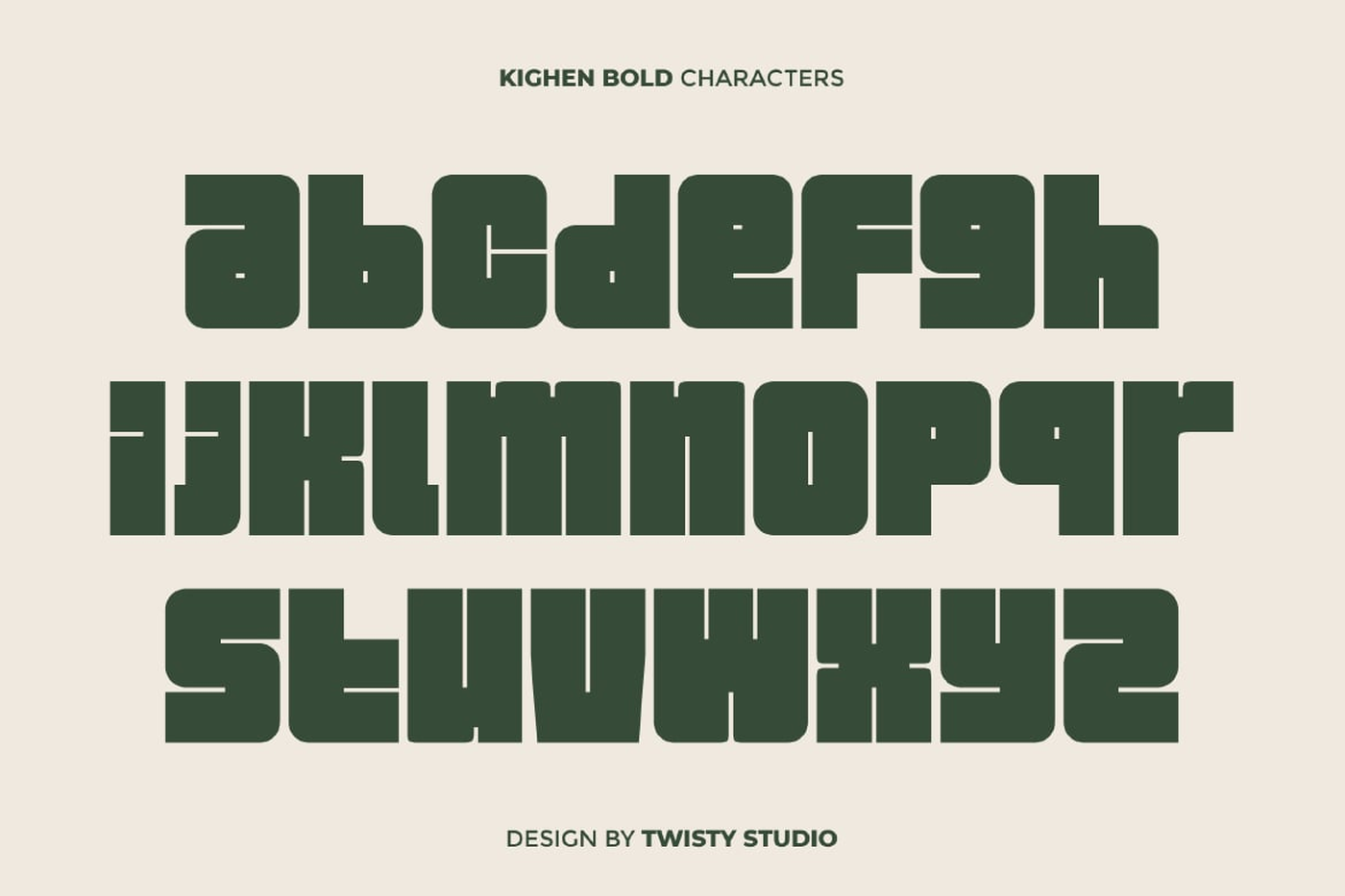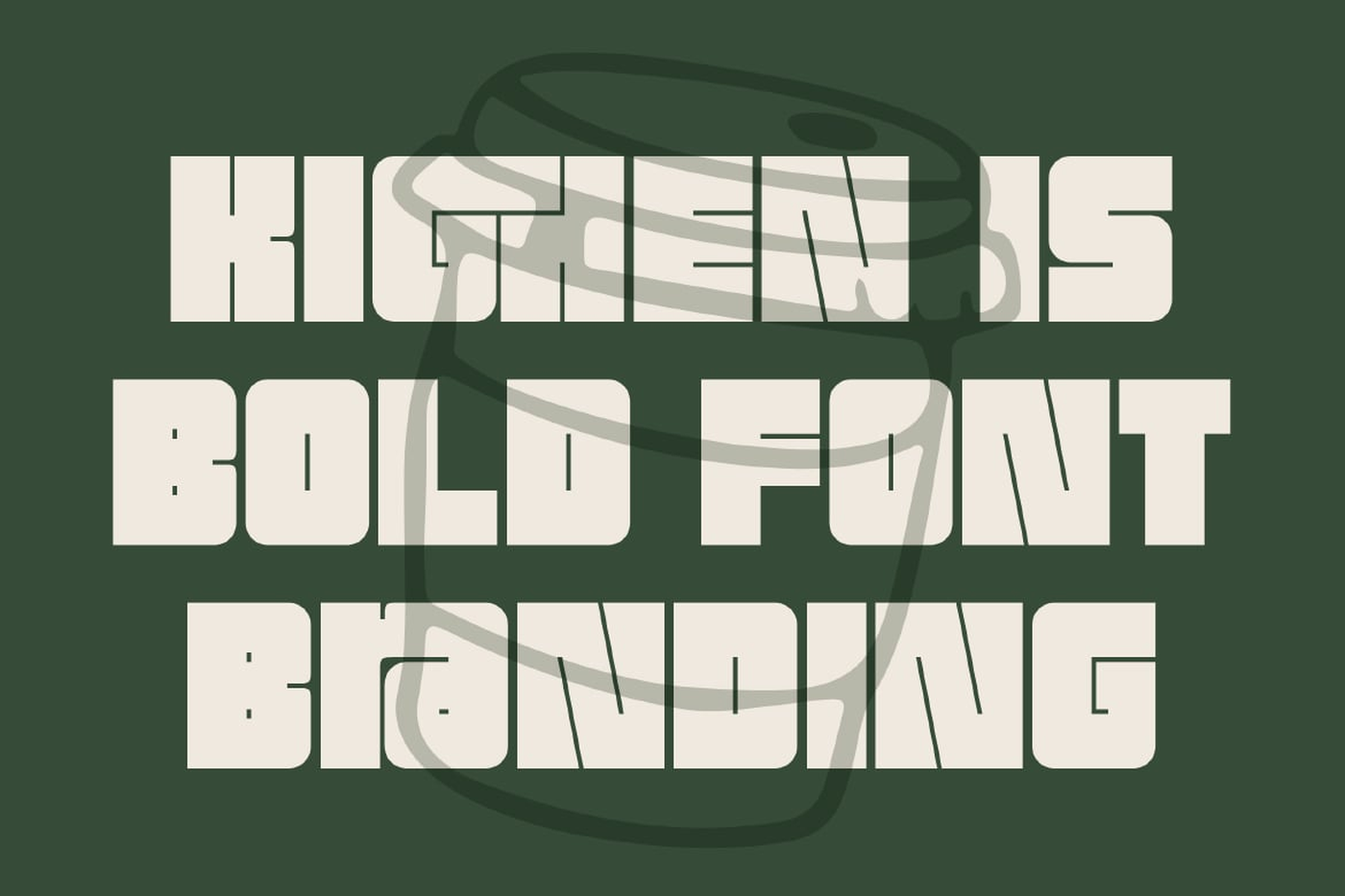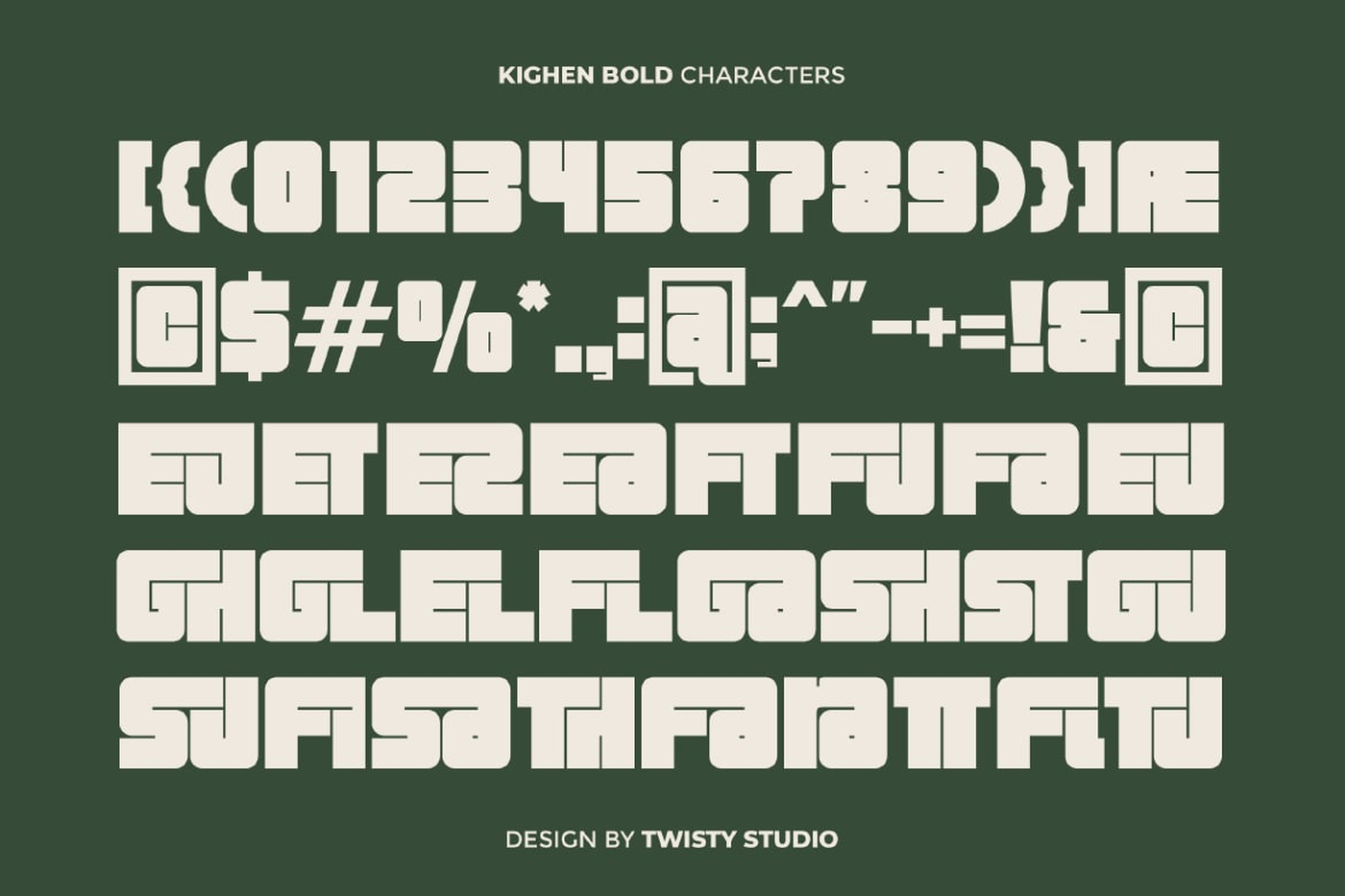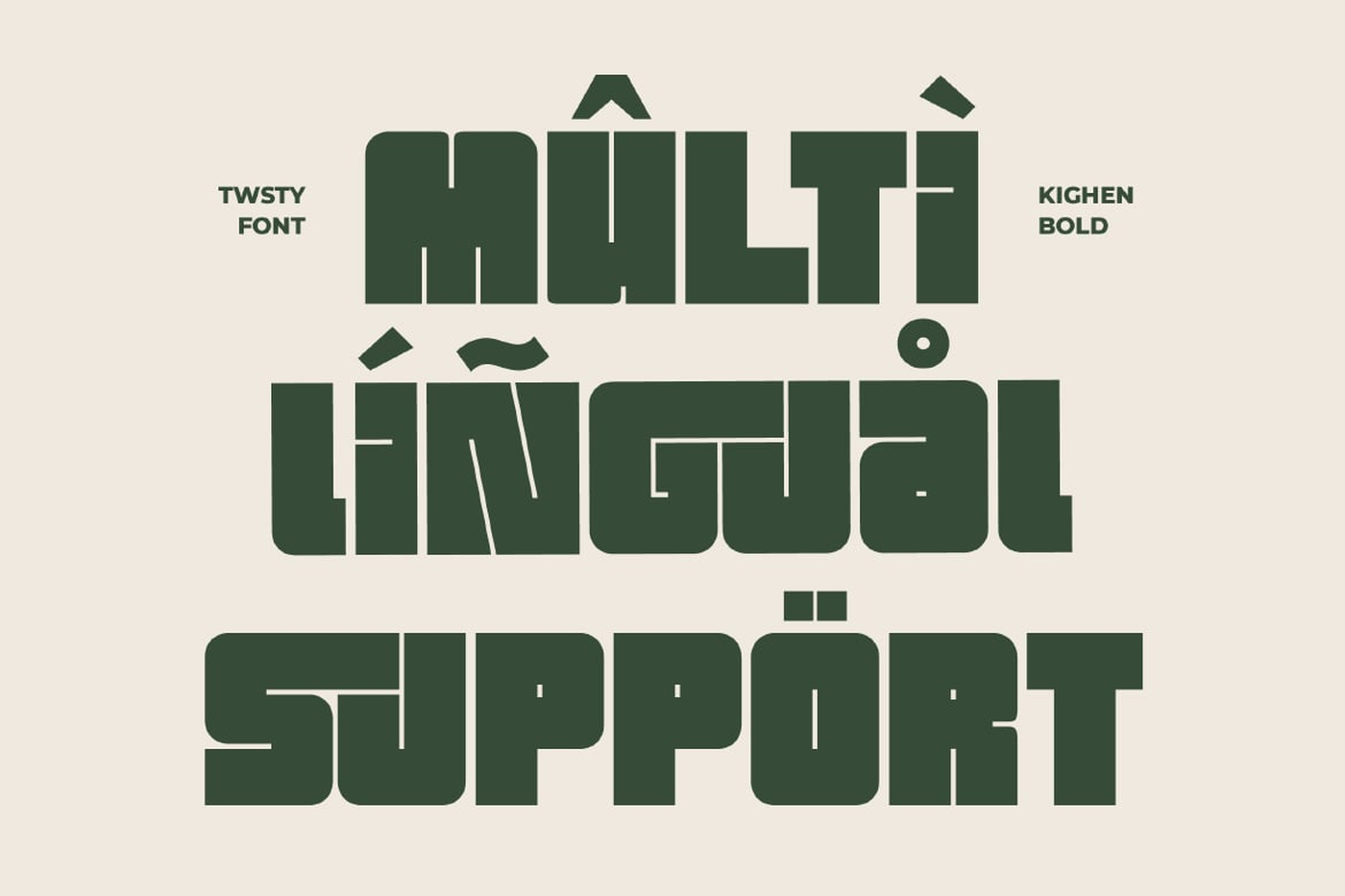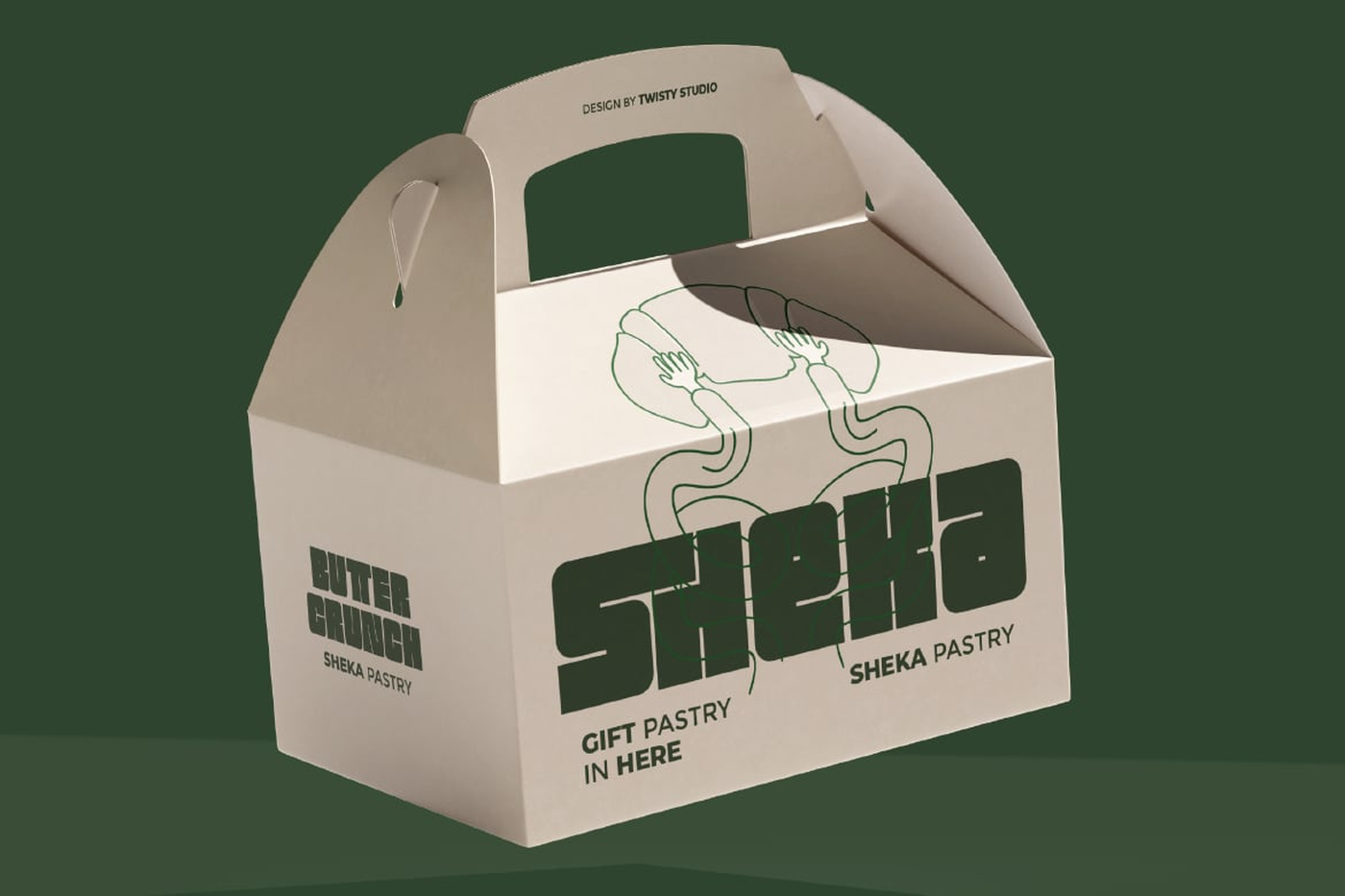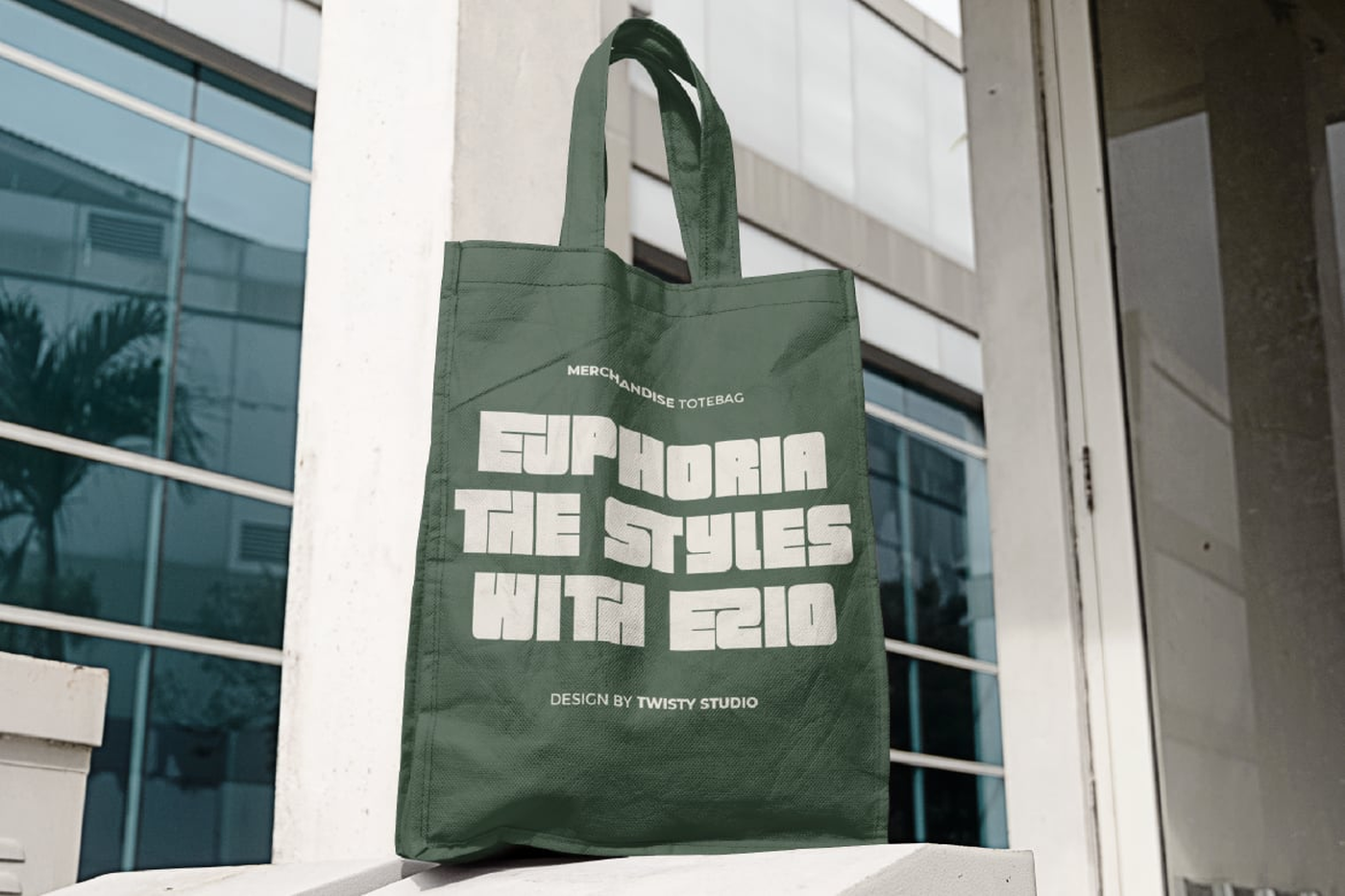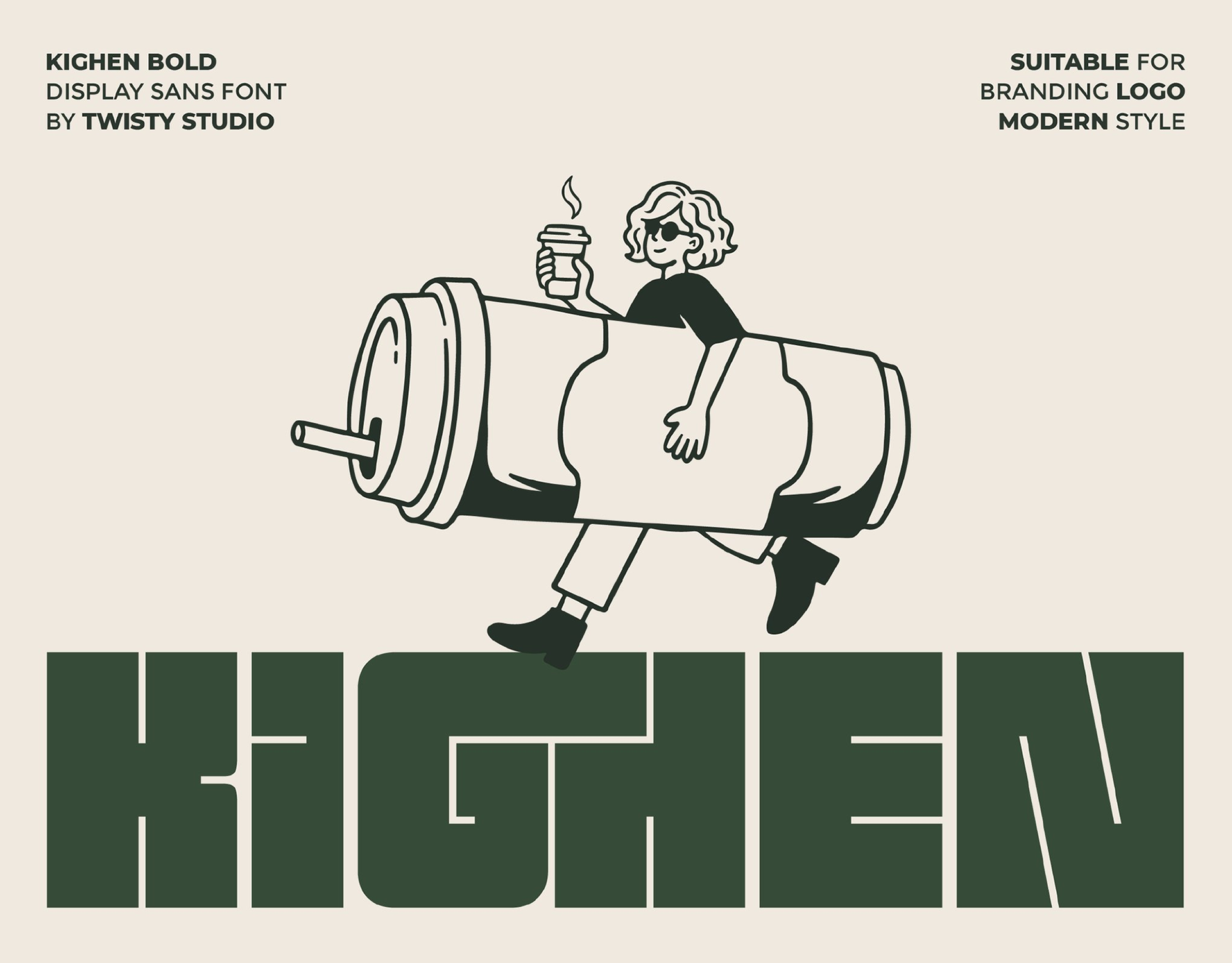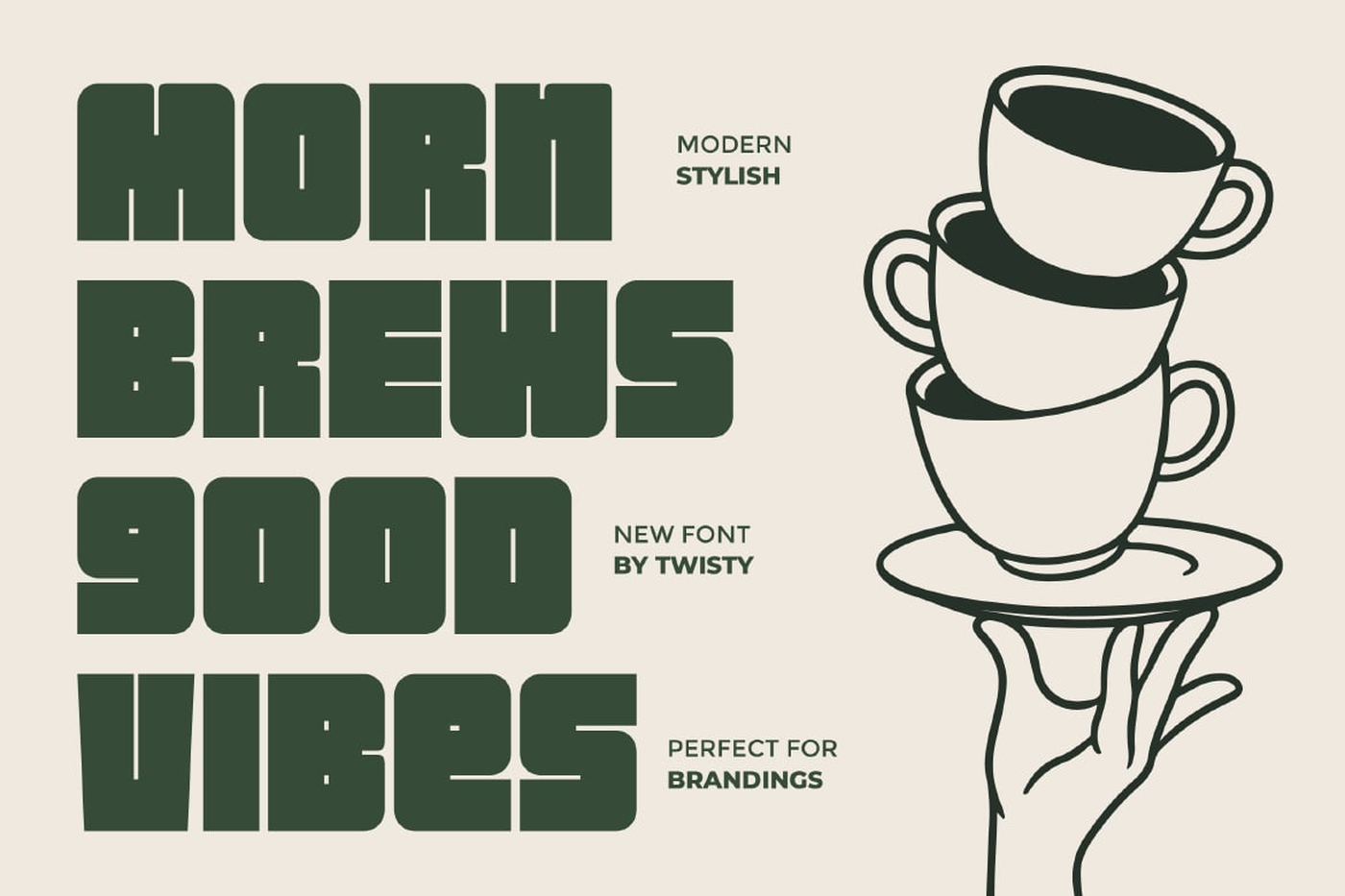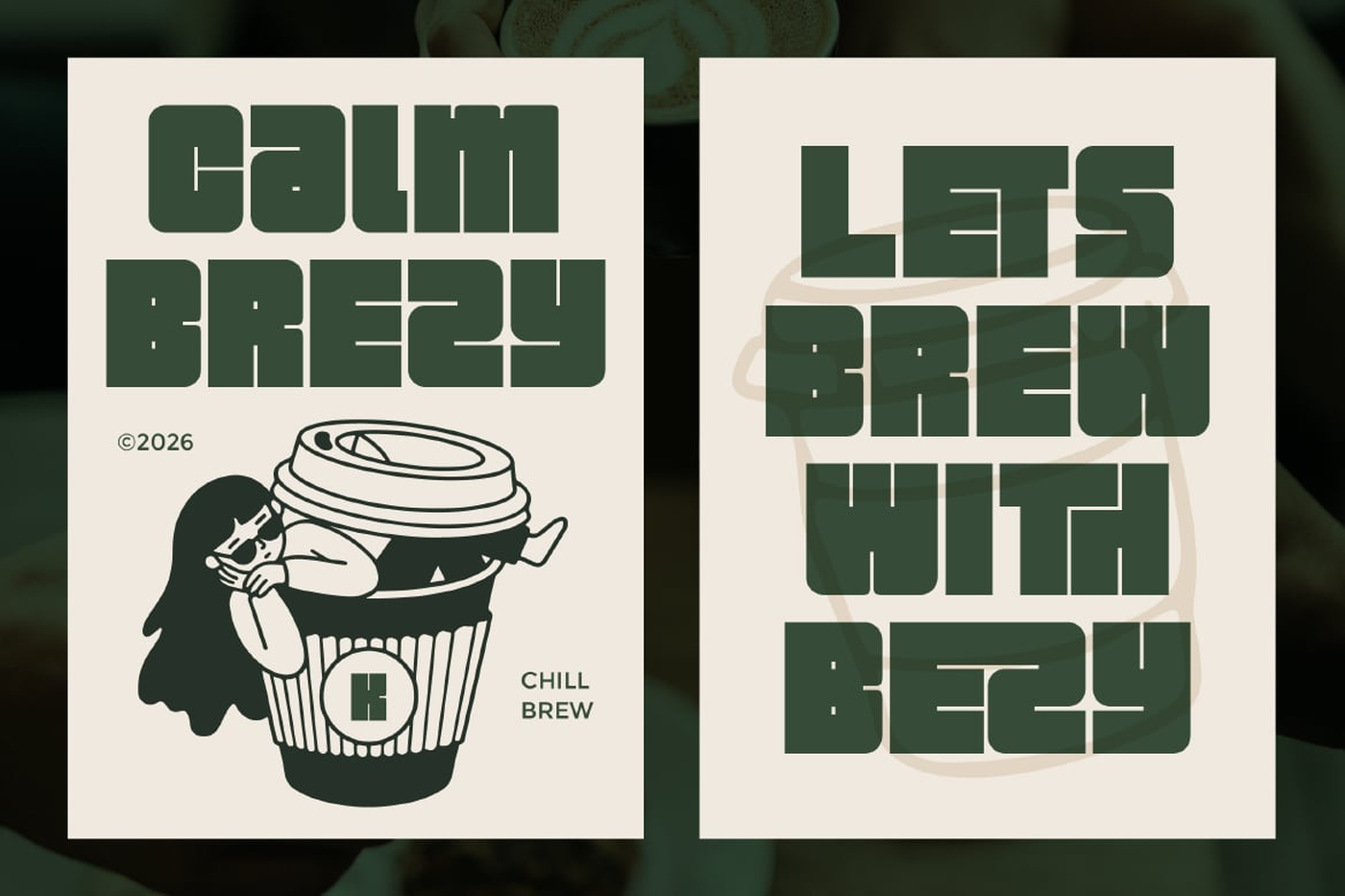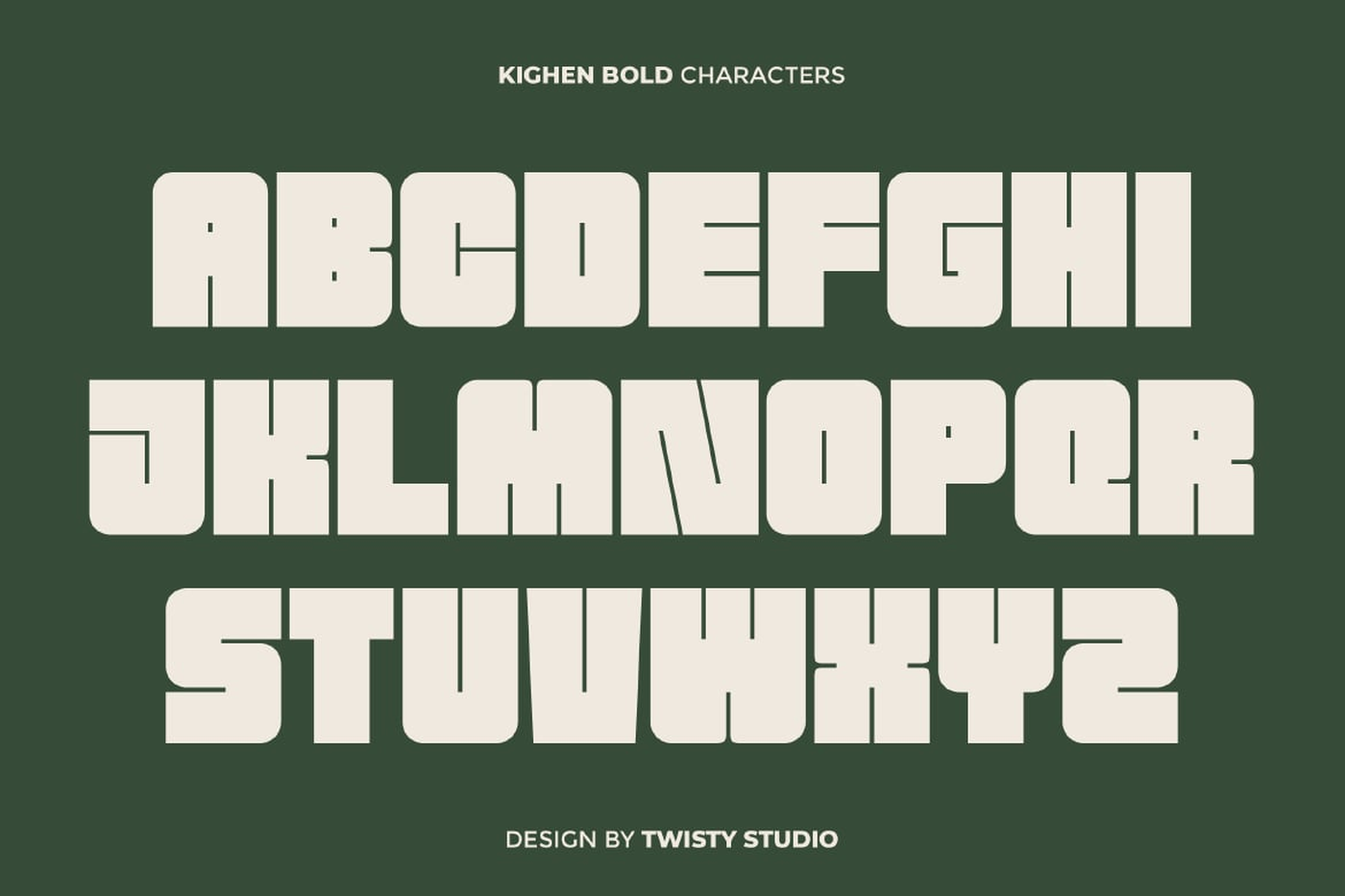
Kighen - Bold Display Font
Kighen is a bold display font designed to deliver strong visual impact and confident character. With its solid structure, thick strokes, and clean construction, Kighen creates a powerful presence that instantly captures attention and makes every word stand out. Built for high-visibility use, Kighen performs exceptionally well in headlines and large typography where boldness and clarity are essential. Its modern style keeps the design clean and versatile, allowing it to work seamlessly across a wide range of creative and professional projects.